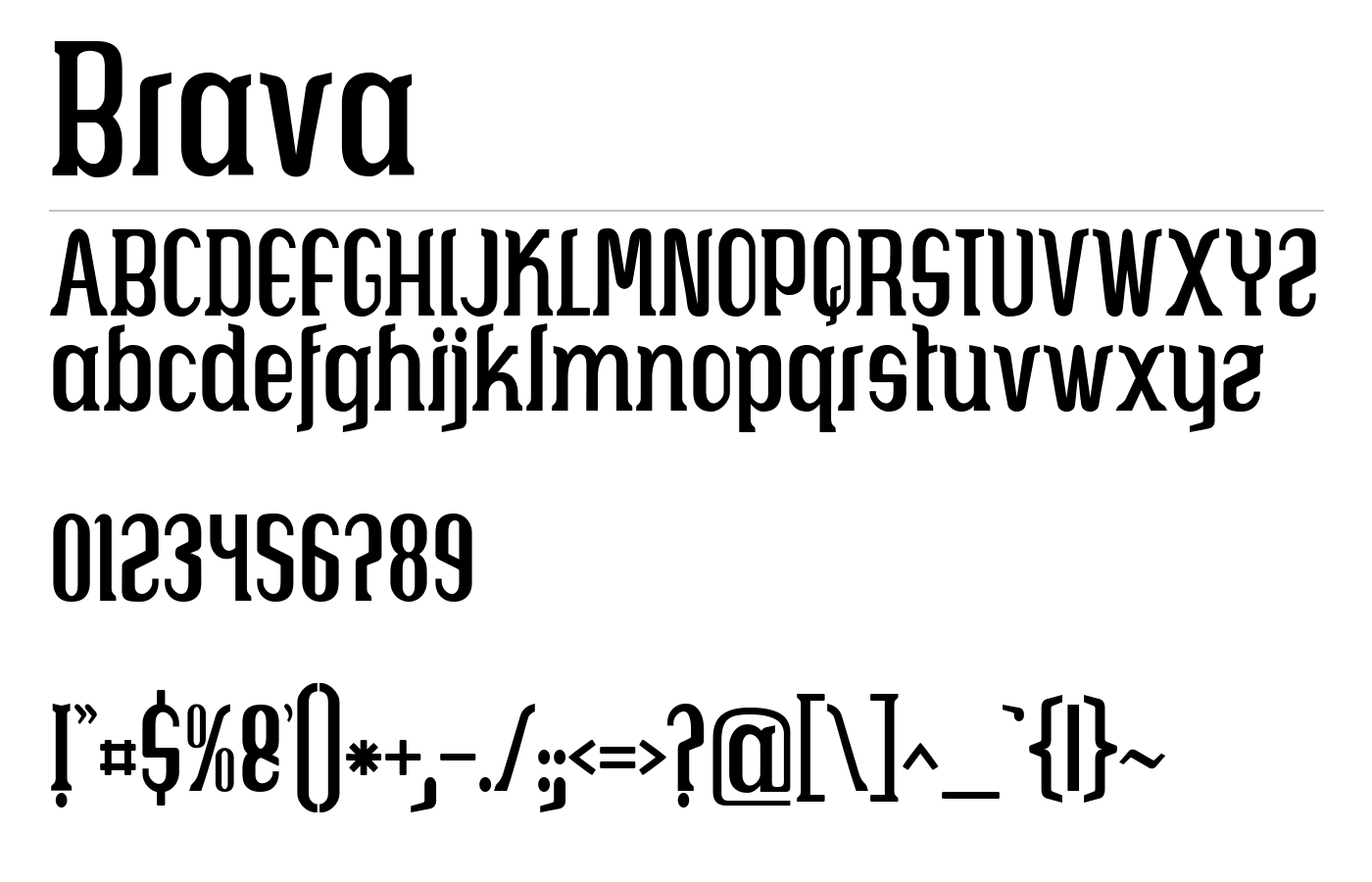
Brava is a condensed slab serif font with a modern and distinctive feel, featuring strong vertical stress and subtle bracketed serifs that add character without overwhelming the design. Its tall x-height and moderate stroke contrast give it excellent readability and a unique personality, making it ideal for bold headlines, branding, and editorial work where a stylish yet authoritative look is desired. This font works well in projects that need a blend of vintage charm and contemporary sharpness, such as fashion branding, posters, and magazine titles.
About Brava Font